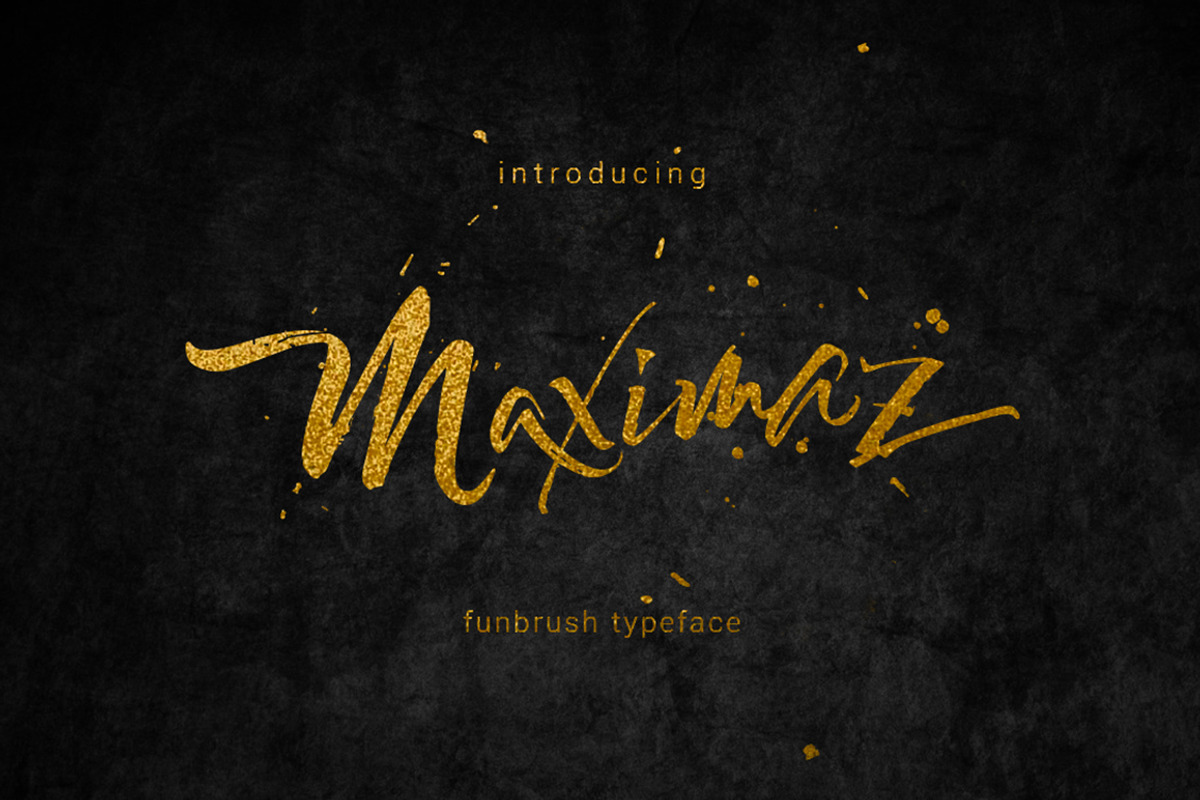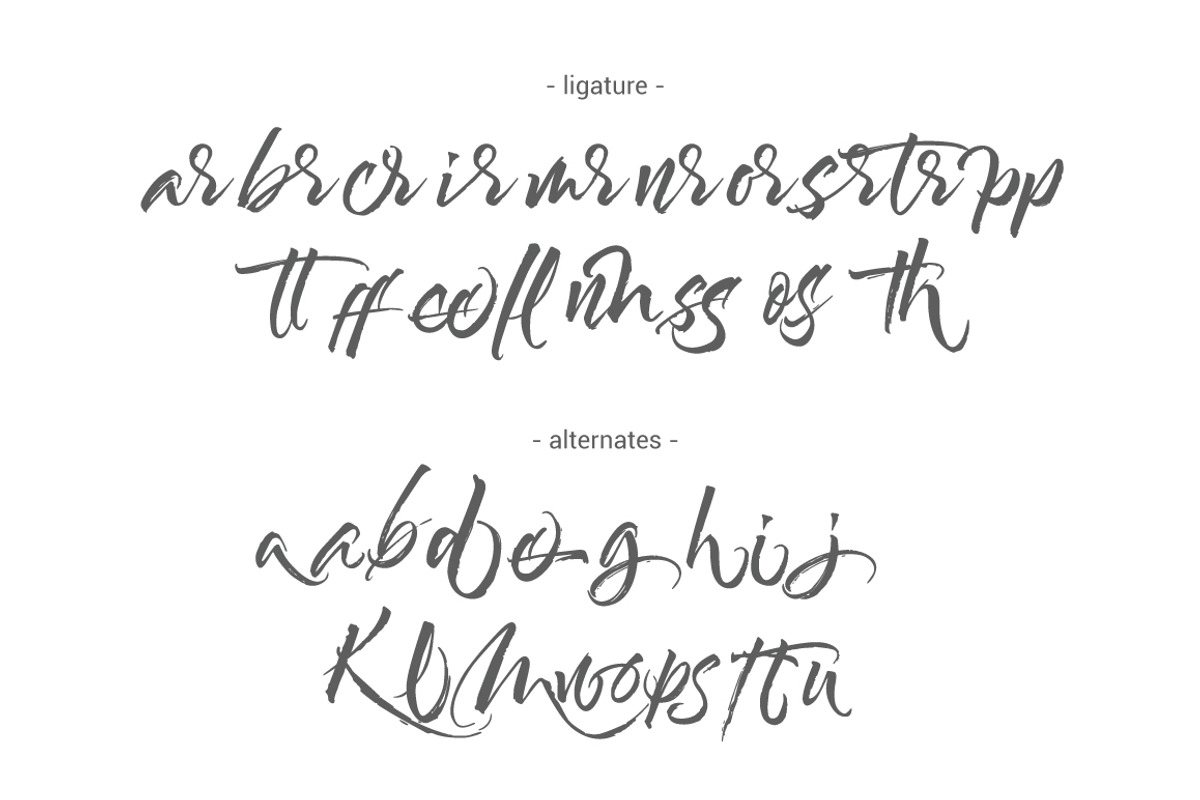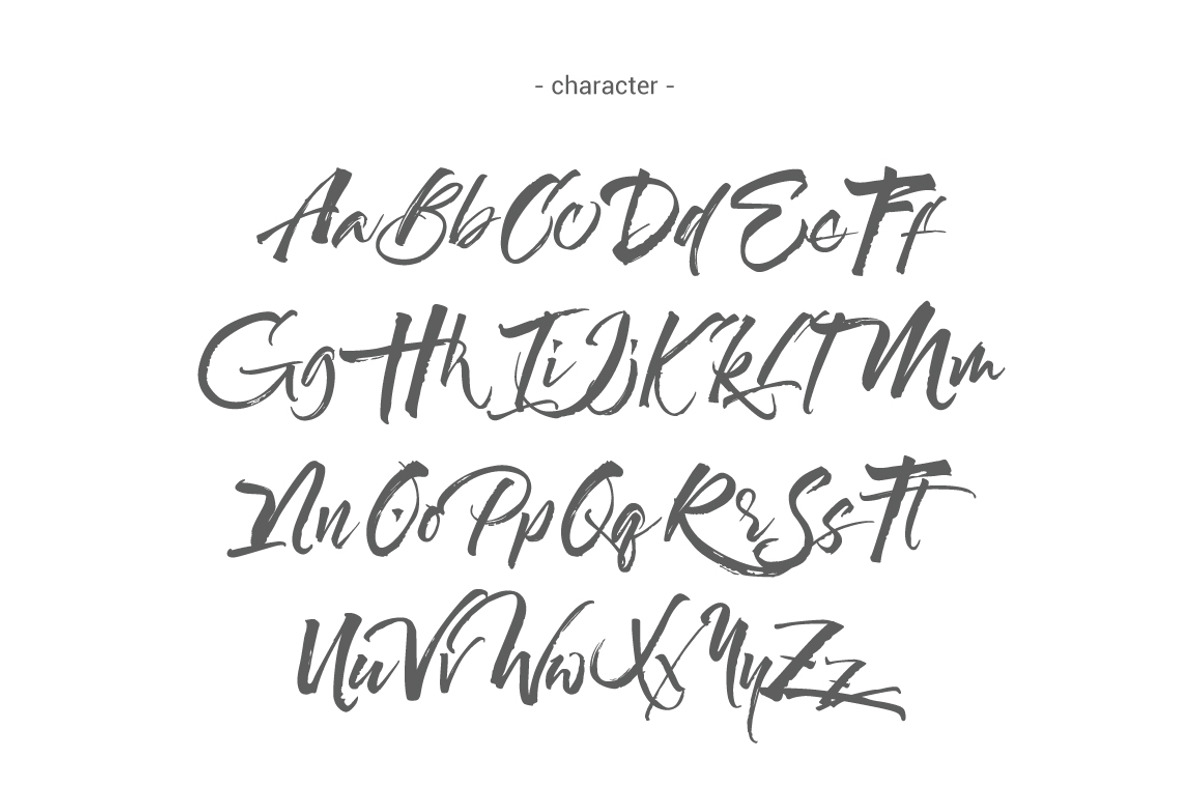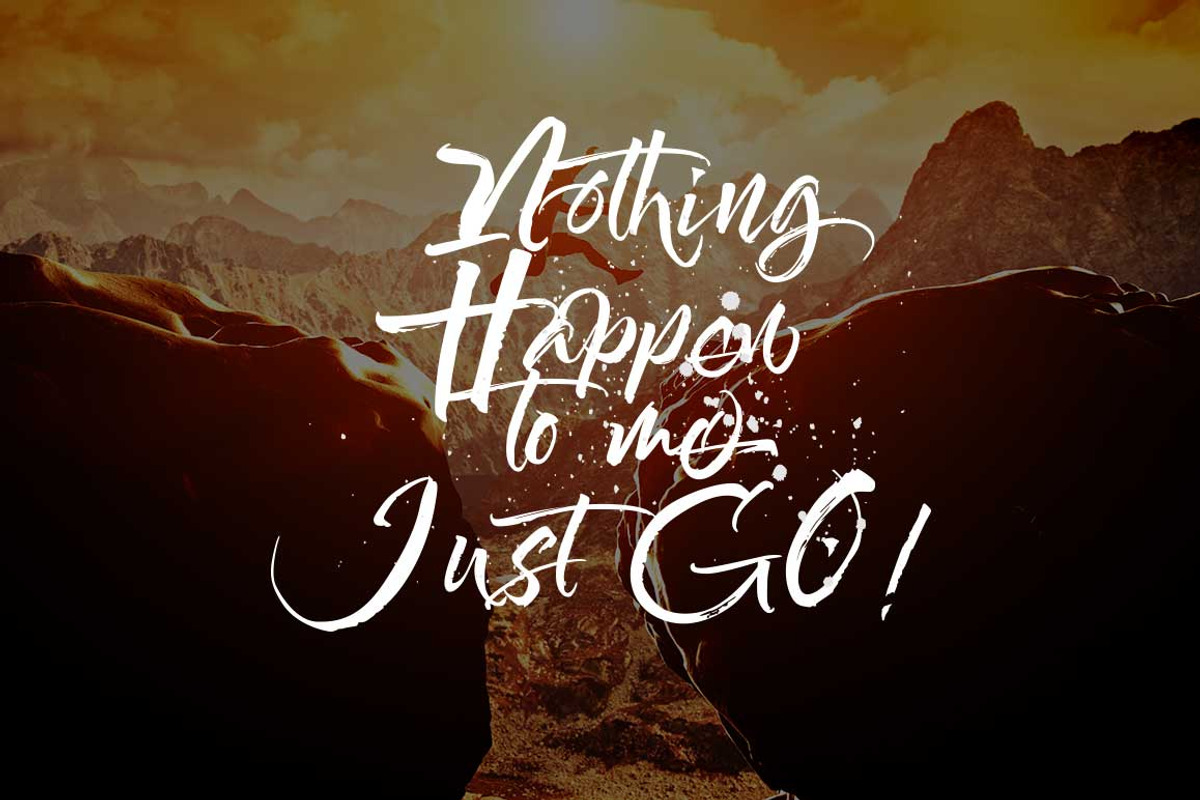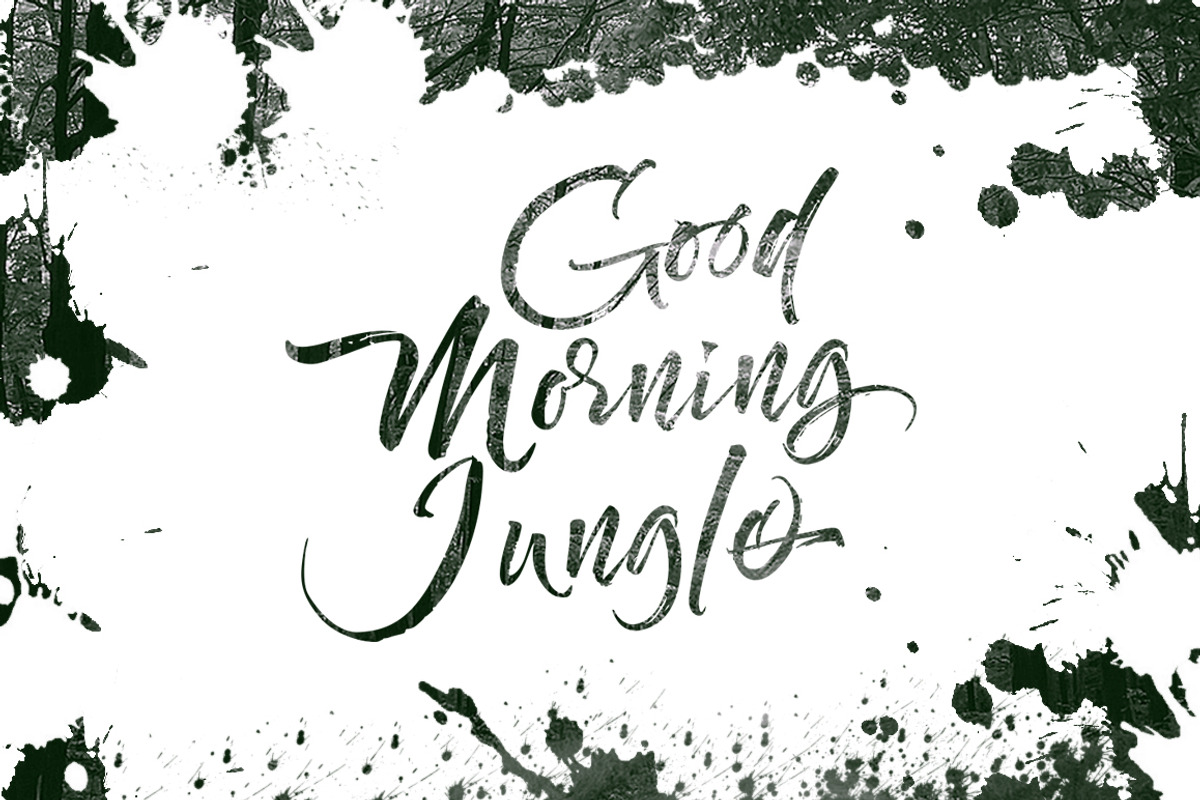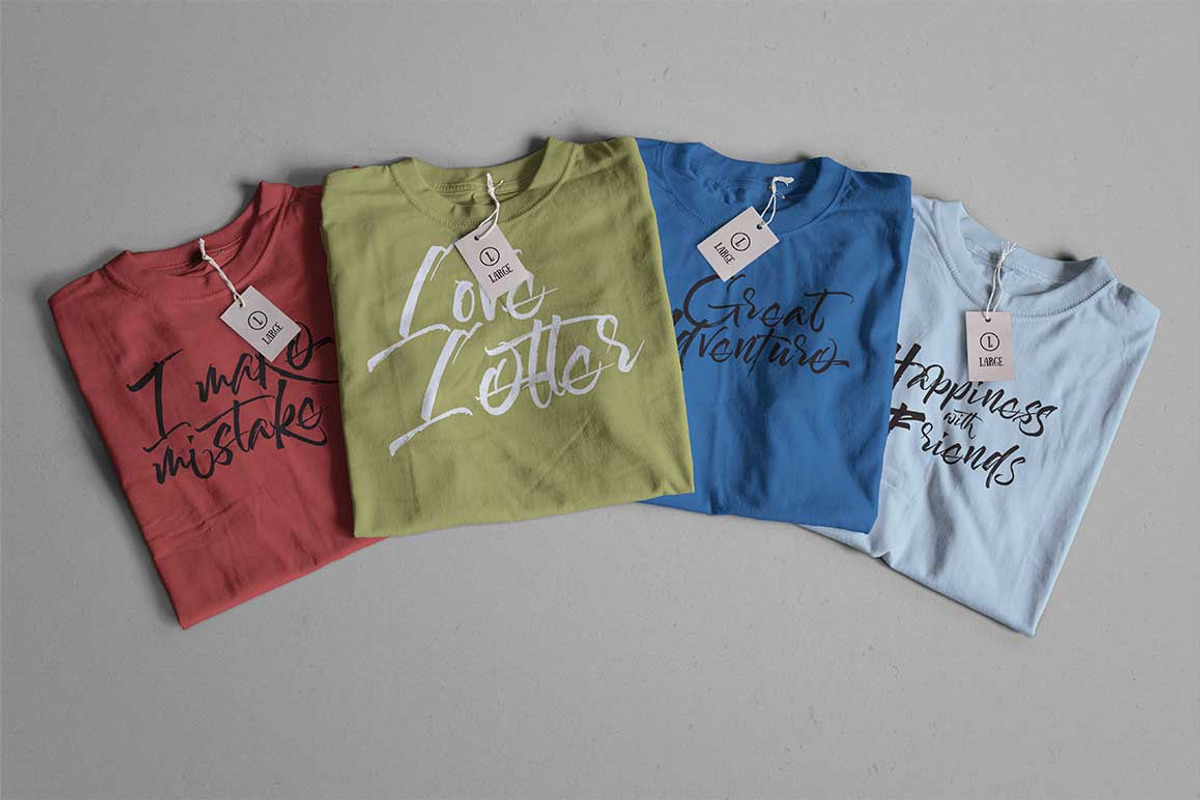
Maximaz Typeface
Maximaz Typeface by Thirtypath Studio is a font selected for branding, posters, packaging, typography.
- IComes with upper and lowercase characters, can be used for various purposes.
Why Maximaz Typeface is worth a look
Maximaz Typeface by Thirtypath Studio fits naturally into Branding, posters, packaging, typography.